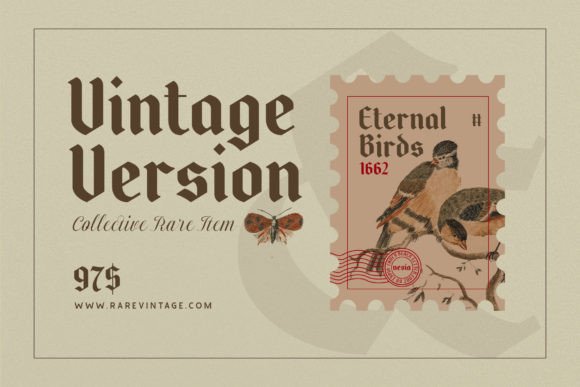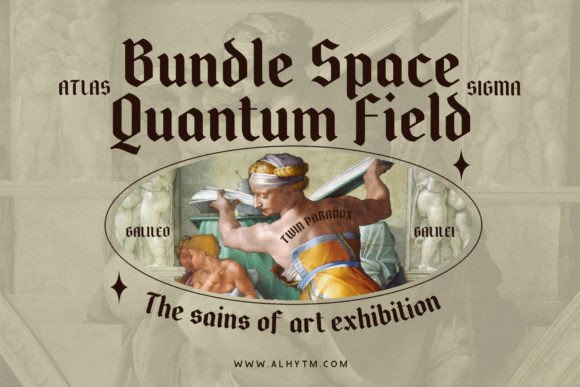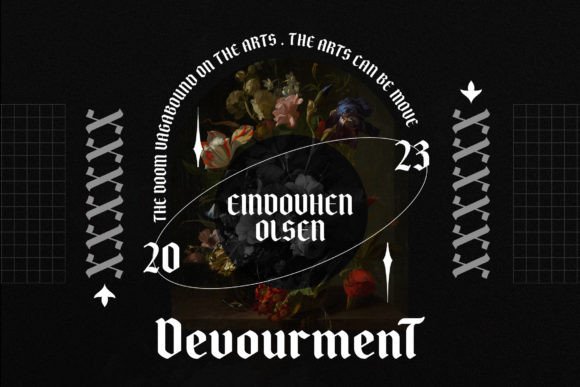
Introduction to Gold and After Font
Have you ever found yourself stuck in a design rut, searching for that perfect font to elevate your creative project? As designers, we’ve all been there. You want a font that exudes elegance, sophistication, and a hint of vintage charm. Well, your search is over! Today, we’re shining the spotlight on the stunning Gold and After Font, a blackletter typeface that’s sure to become your new design best friend.
Whether you’re working on a high-quality branding project, a modern advertising campaign, or a spooky Halloween design, the Gold and After Font has got you covered. Its distinctive features, such as sharp edges and bold lines, make it an ideal choice for applications like logos, packaging, headlines, and posters. And the best part? It’s available for free download, making it an invaluable resource for designers of all levels.
Key Features of Gold and After Font
- High-quality, professional design for creative projects, making it an ideal design resource.
- Gold and After Font includes a wide range of characters, including uppercase and lowercase letters, numbers, and punctuation marks.
- Unique and elegant design makes it perfect for various creative projects, from branding and advertising to editorial and publishing.
Honest Review: Gold and After Font
As a designer, I’m always on the lookout for high-quality design resources that can elevate my creative projects. The Gold and After Font is one such resource that caught my attention.
What works well is the font’s elegant and modern design, perfect for any creative project that requires a touch of sophistication. The transparent background makes it easy to use on various backgrounds, giving designers a lot of flexibility.
However, there are some limitations to consider. The font may not be suitable for projects that require bold or playful typography. Additionally, the free version may have some limitations in terms of customization options.
Overall, I’m impressed with the Gold and After Font. It’s a great design resource that can add a touch of elegance to any creative project. While it may have some limitations, it’s definitely worth considering for designers looking for a high-quality font.
Common Use Cases for Gold and After Font
The Gold and After Font is perfect for a variety of creative projects, including invitations, business cards, and presentations. You can also use this font to add a touch of elegance to your website or social media graphics.